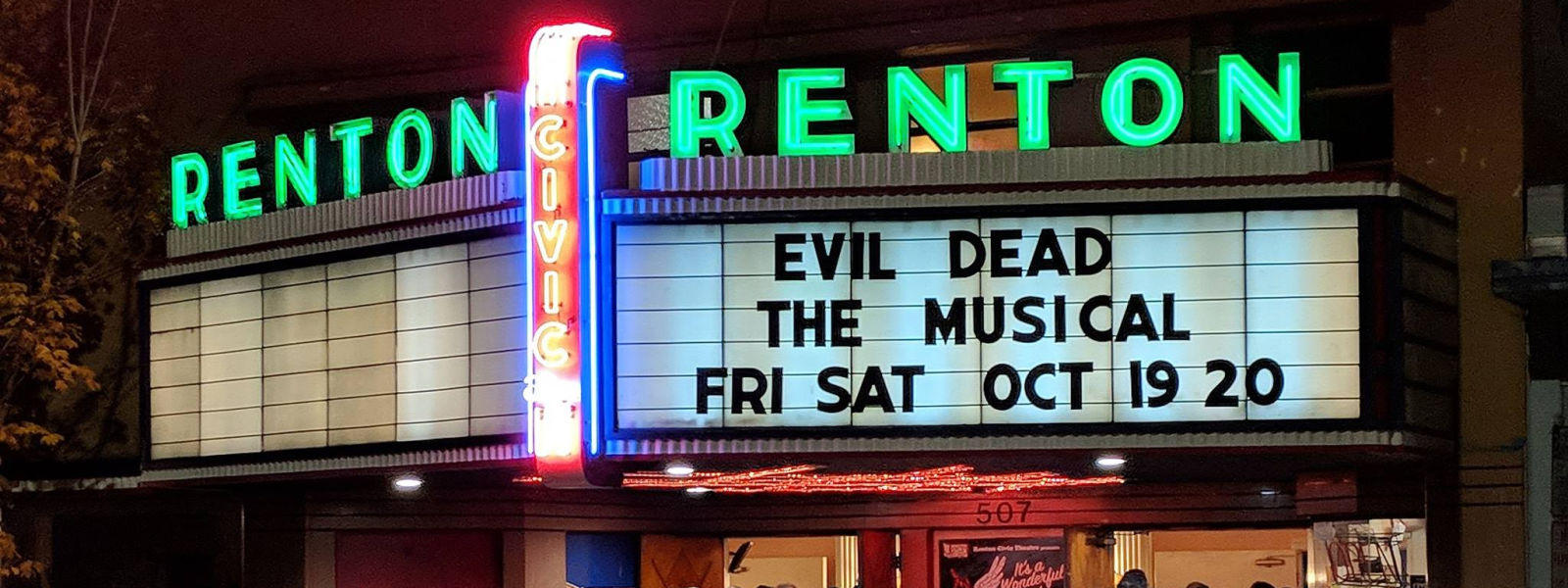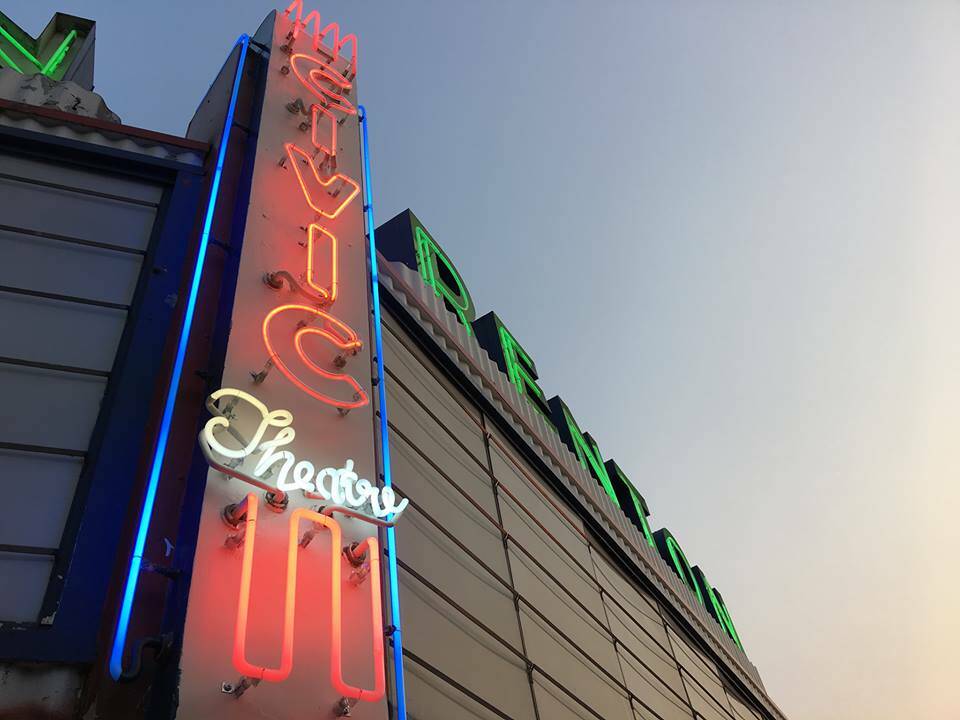
I'm trying to rebrand this theater, and tie in typography to their history. This marquee has been up since the 1940's and I would love to find something close.
This is tough because it's all caps, and I am most interested in the 3 separate san serif fonts (don't need the script so much, i think that's just custom bent neon).
The "RENTON" appears to be very art deco/modern. Look at that super unique "E" crossbar shape?!
The "CIVIC" is kinda like futura but rounder? it's condensed, because even though it's round, it's narrow.
The font of the marquee letters are also interesting. Some low crossbars, like on the R's and A's but not on the E's or H's. It's not the same as the "CIVIC" though because the C's are very different. Hopefully it's not something common like helvetica and I just can't recognize it because it's all caps.
Your initial instinct—that this is all custom type—was accurate.
In the 1940s, virtually any type you saw that was larger than a newspaper headline had its start as hand lettering, not typesetting.
RENTON is rendered in an Art Deco style. You could start with something like the Google web font Montserrate ExtraBold 800 and alter it to match (widen the vertical strokes on most letters and the diagonal stroke on the Ns, truncate the counter on the O, customize the E).
Lemondrop has a similar vibe, and would require somewhat less customization. Show Biz JNL is also quite close (note the E).
I'd have to spend some time in Photoshop to get a more straight-on view of CIVIC in order to get you a suggestion for matching it. EDIT: Peace Sans would work for the overall shape; outline it (to the inside of the edge), and you are very close. Avenir Next Heavy would also be a good approximation.
For the marquee text (specifially the older photo), try Main Feature JNL.